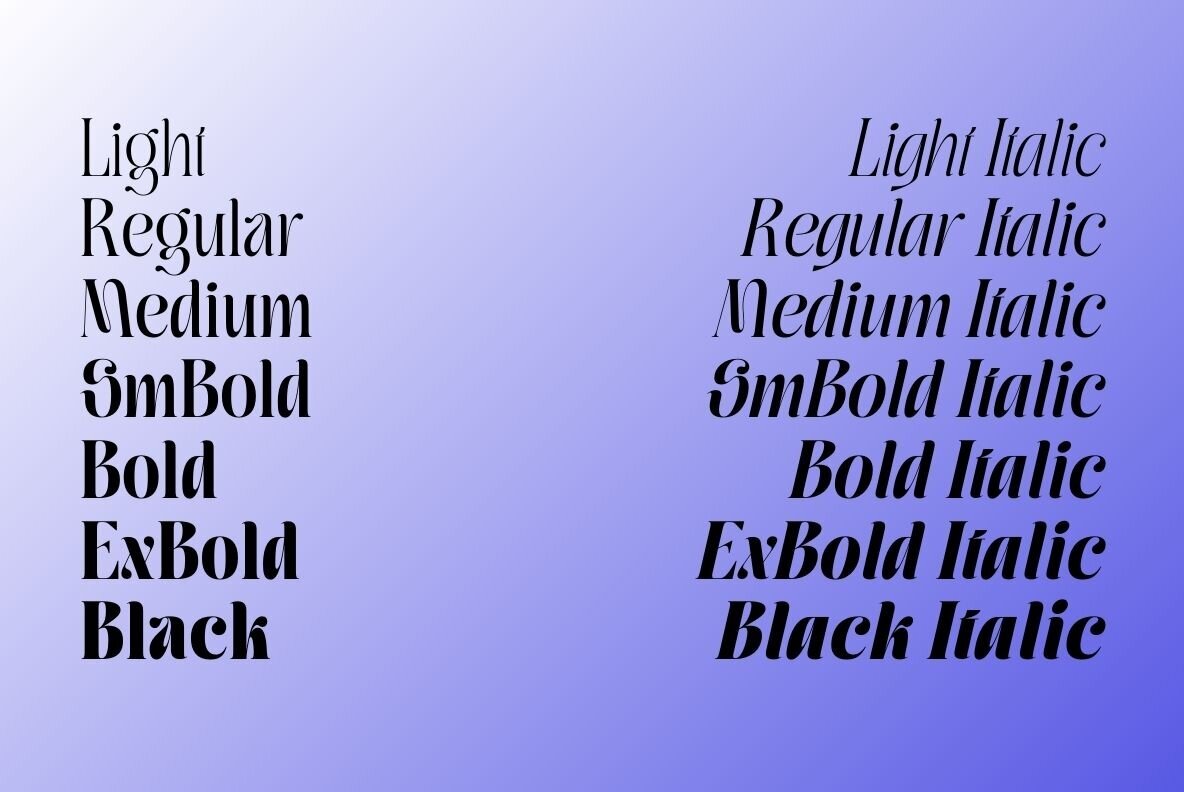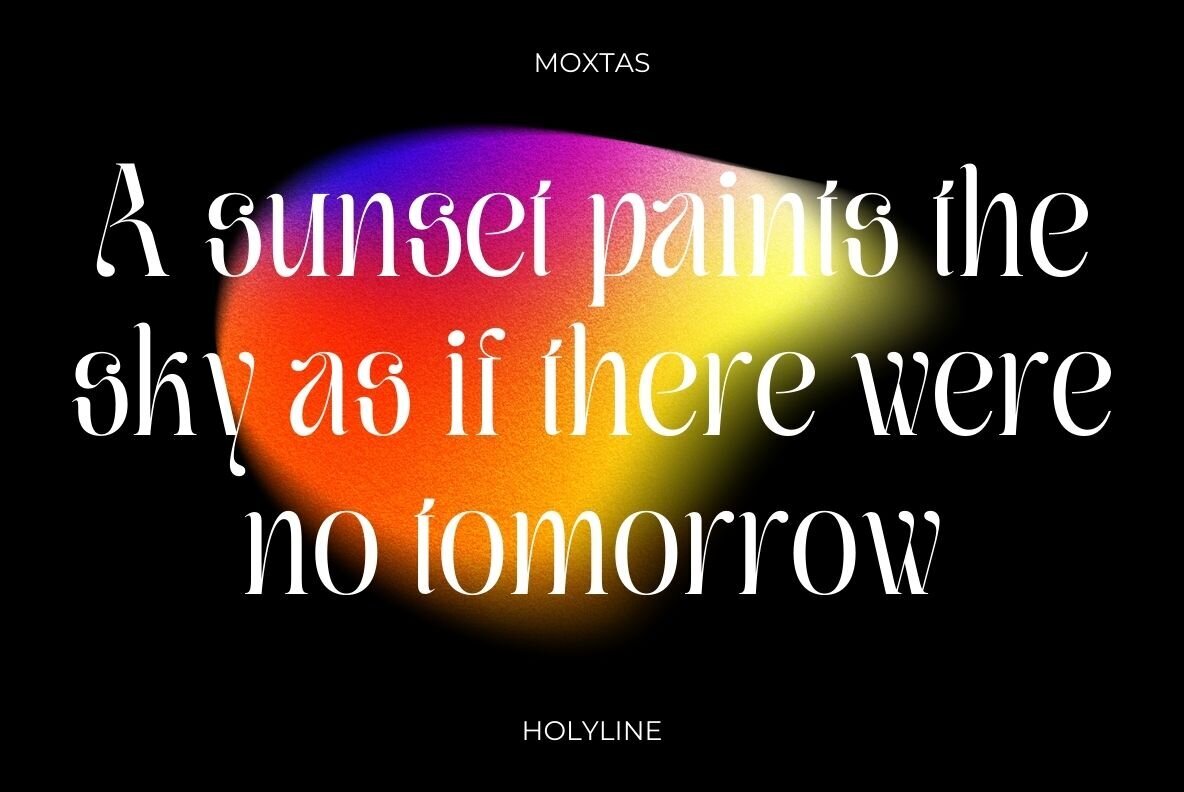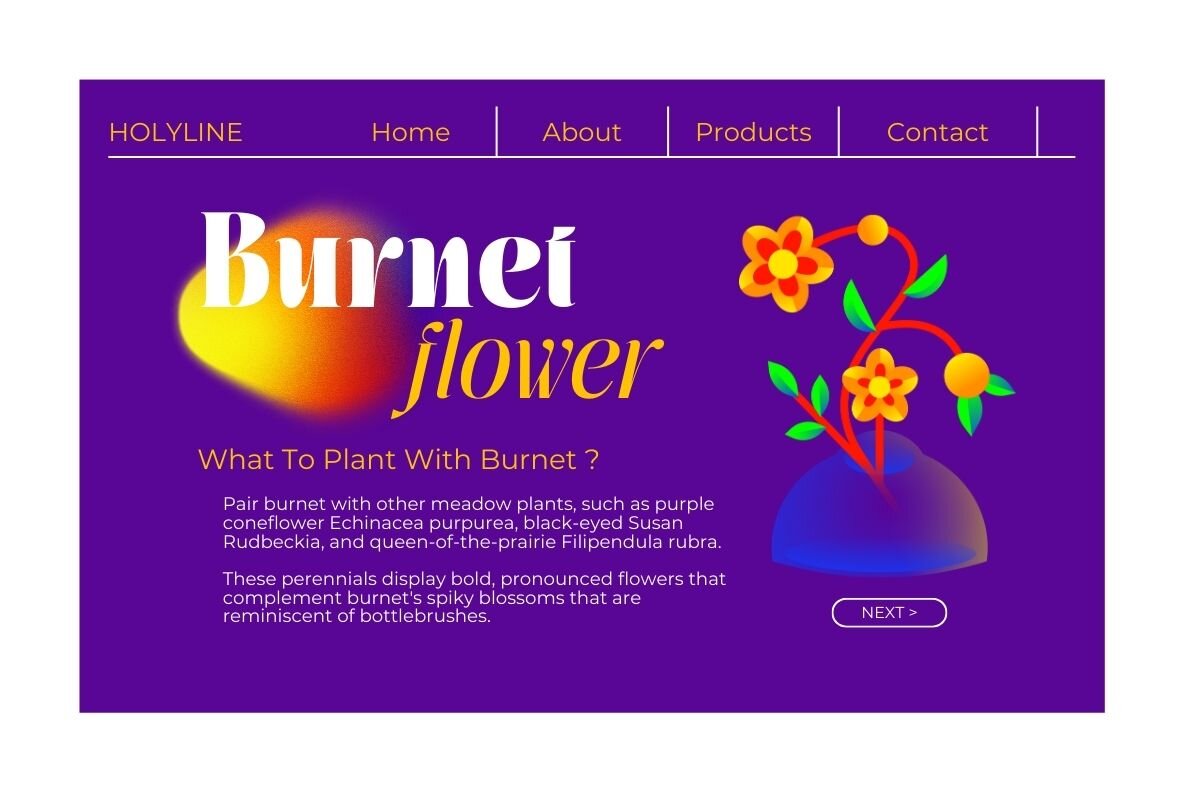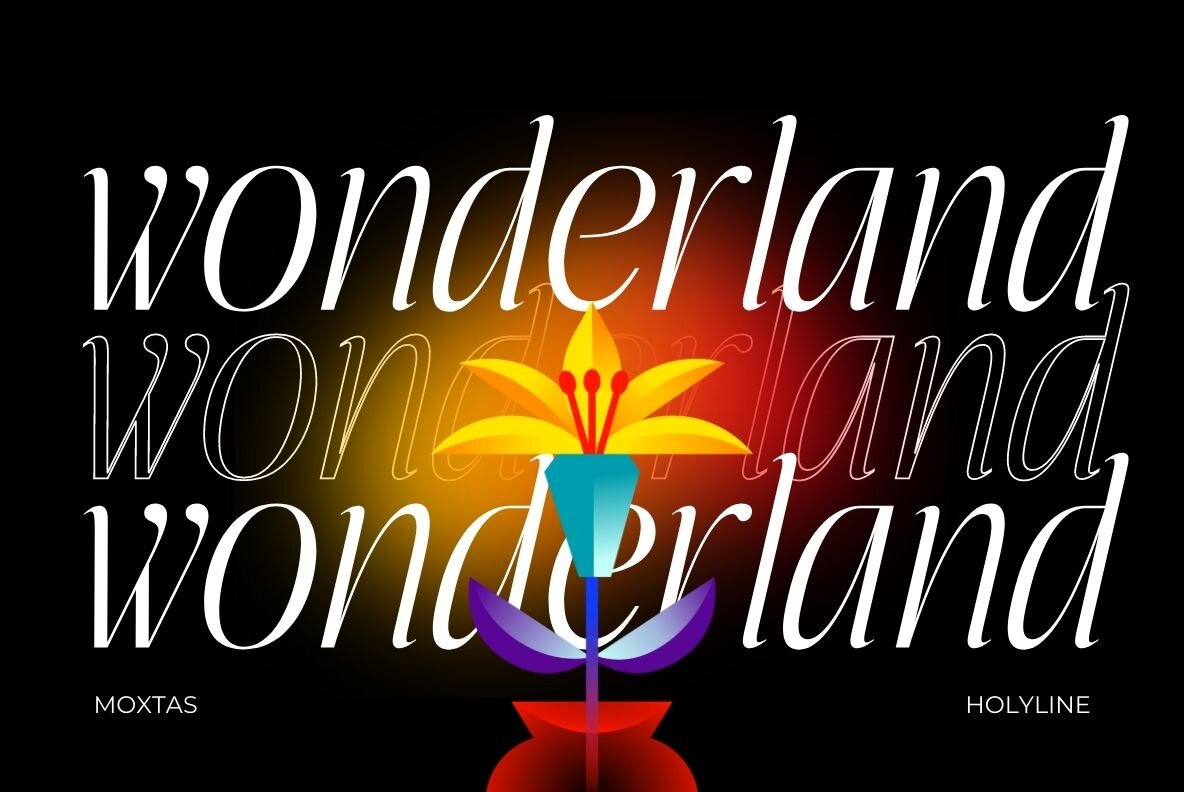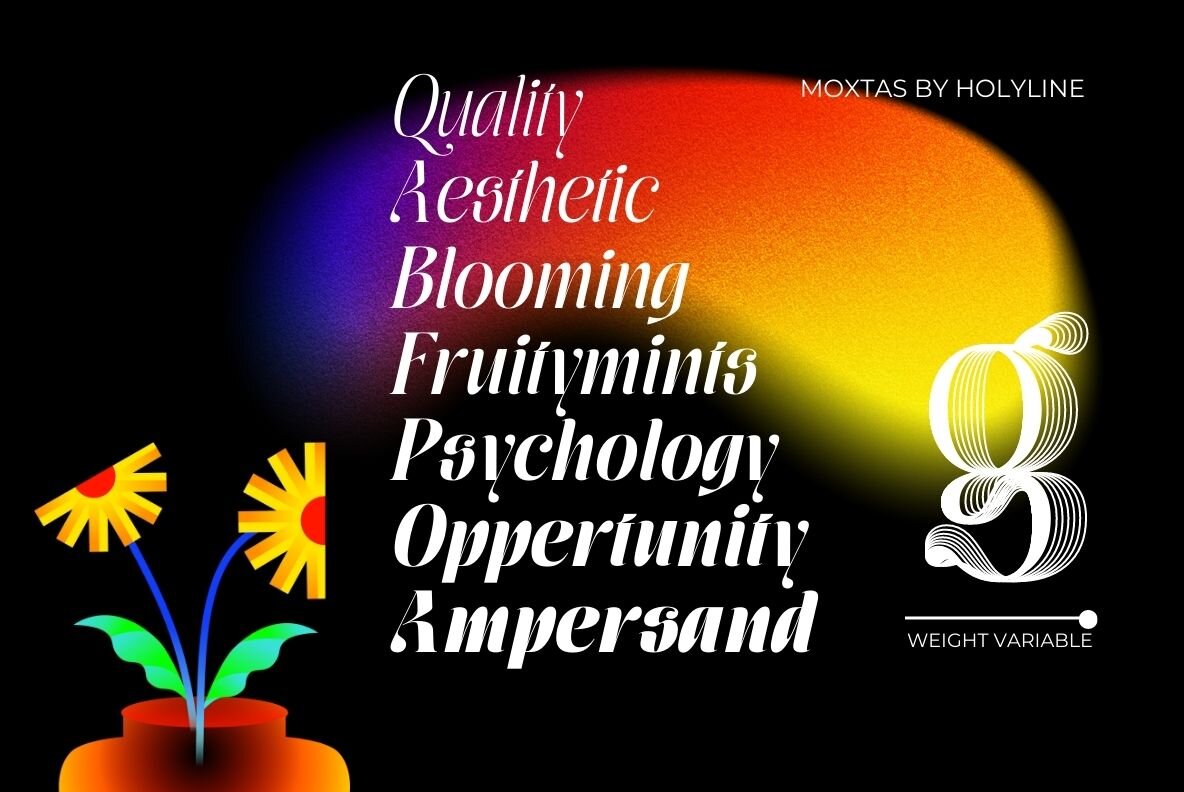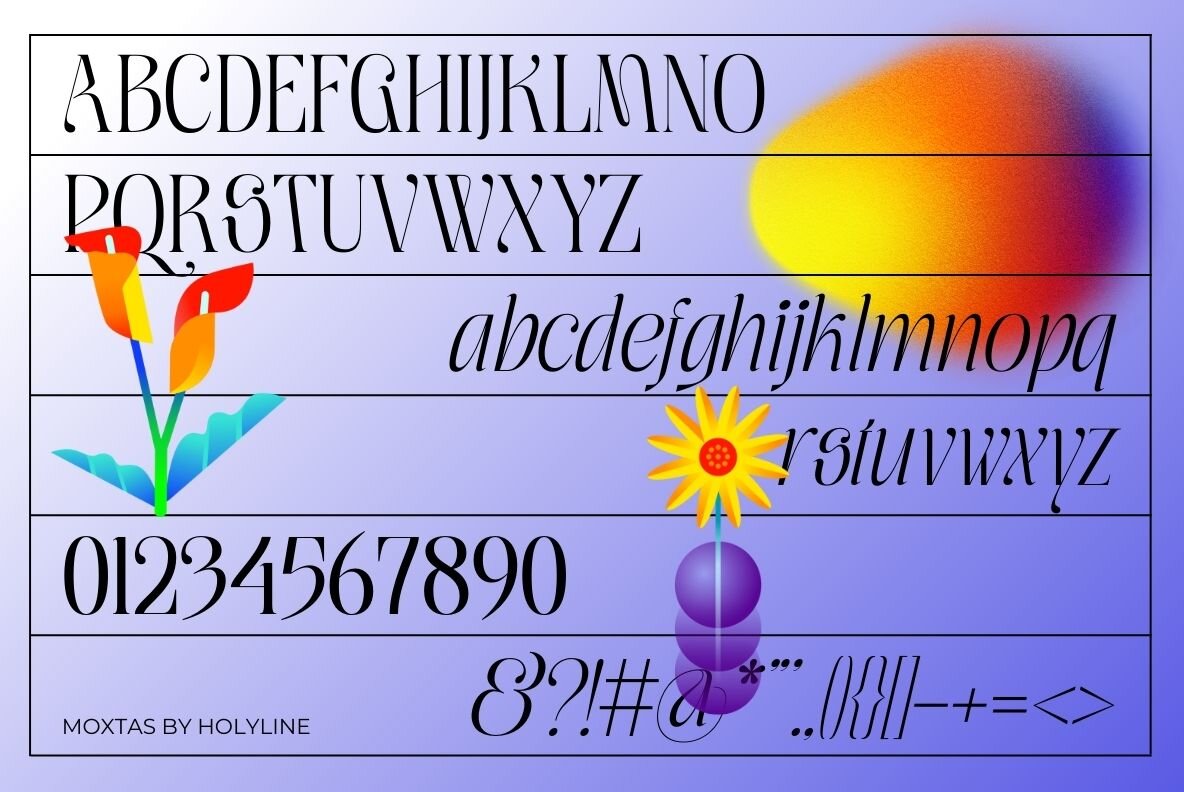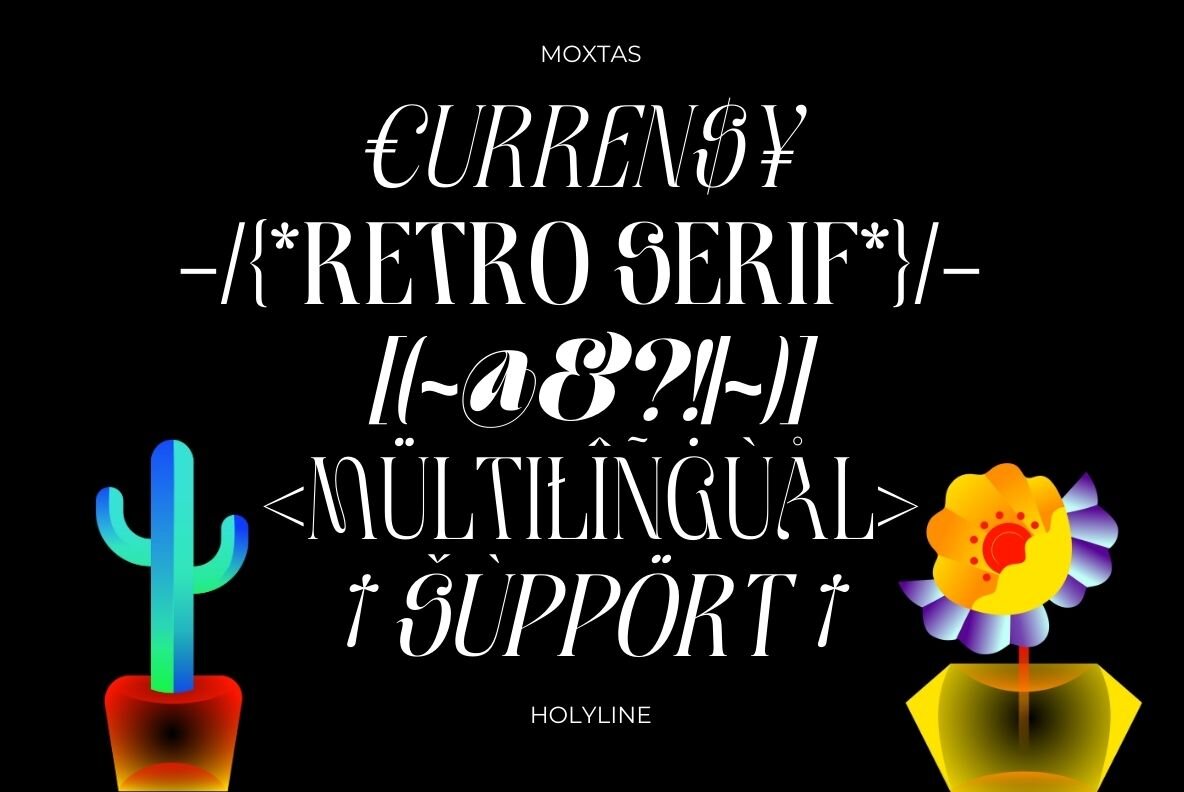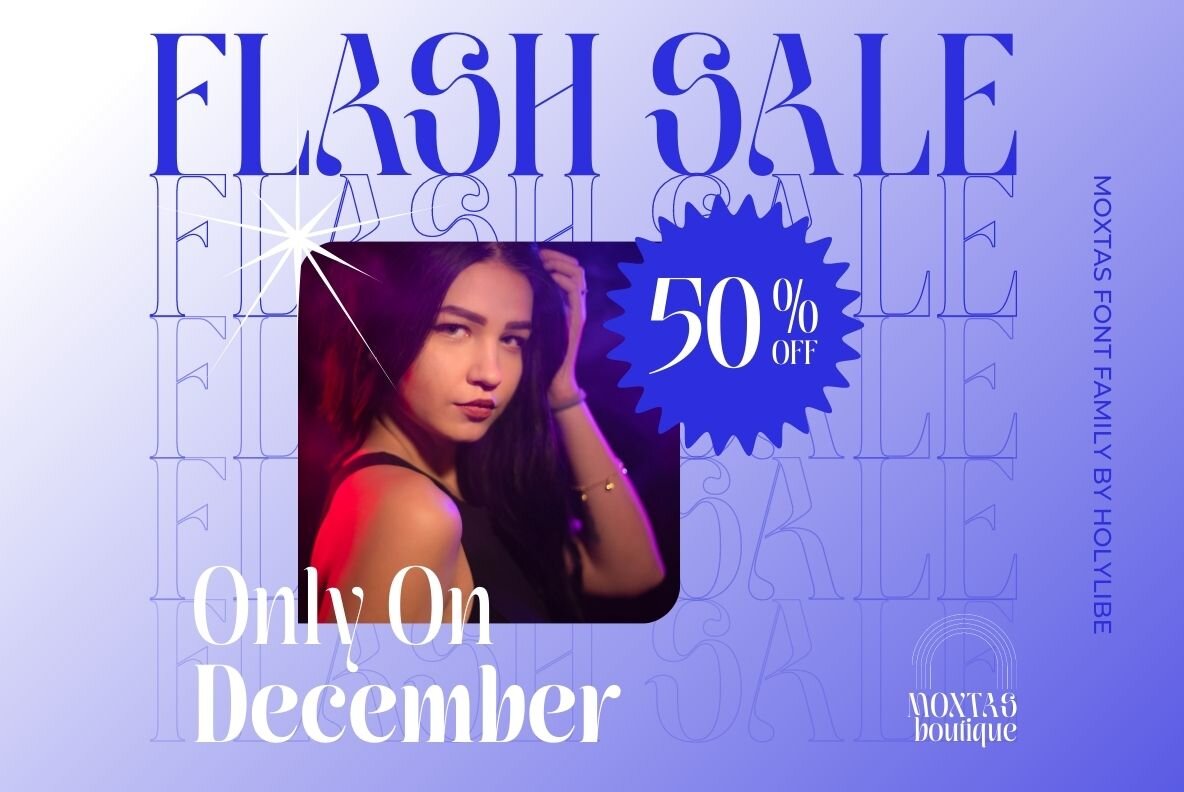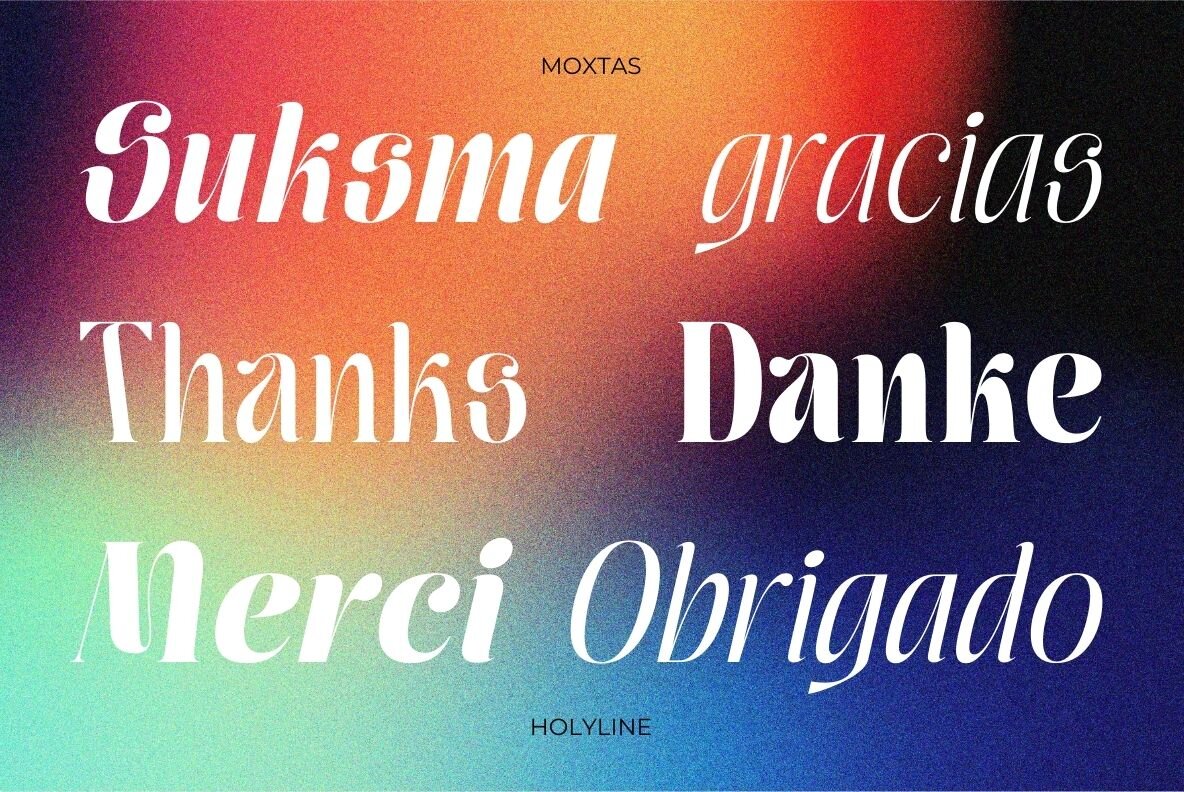
Moxtas Font
Moxtas by Holyline Design is a distinct retro serif font family characterized by its elegant and playful design. Available in seven weights with italic options, it seamlessly blends style and uniqueness, making it a versatile choice for a wide range of creative projects. Moxtas is a superb choice if you're seeking something fresh for your projects. Enjoy experimenting with all 14 font styles and pairing different weights to achieve satisfying results. Happy creating!Moxtas by Holyline Design: Retro Serif Font Family